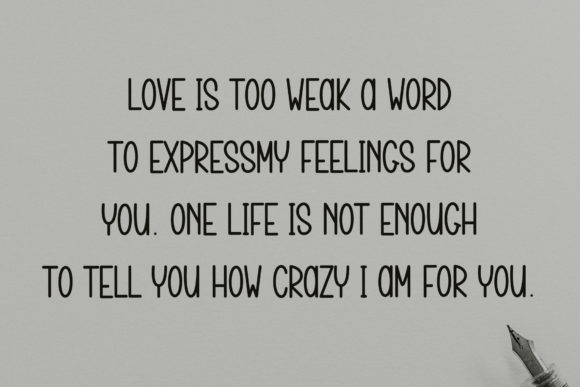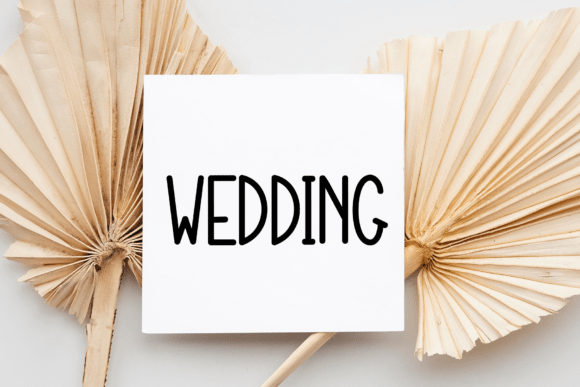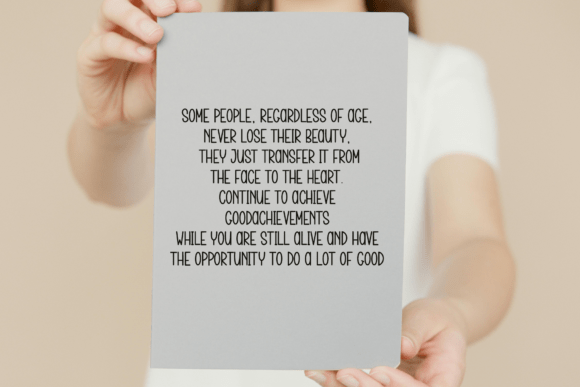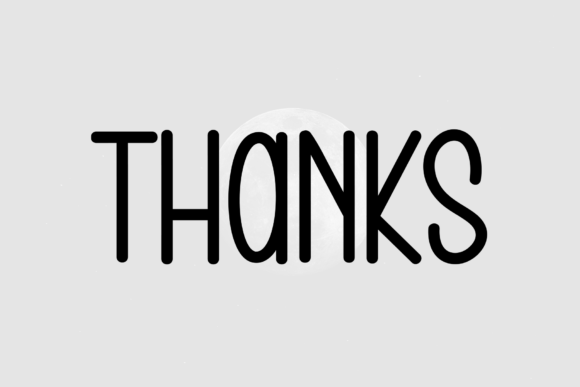
Introduction to Nightlight Font
Nightlight is a sweet and beautiful handwritten font.
Featuring characters that dance along the baseline, this font will add a cozy accent to any design project you wish to create .